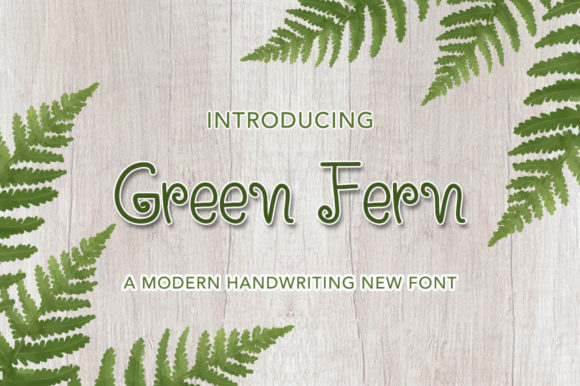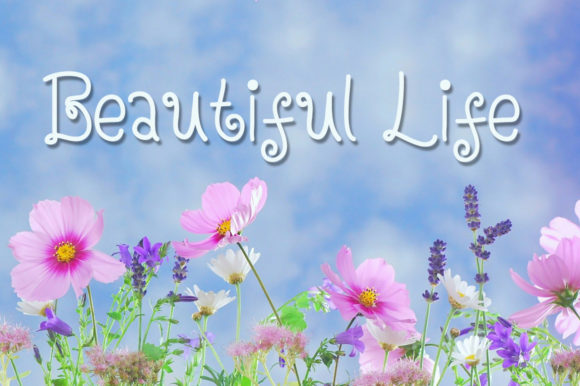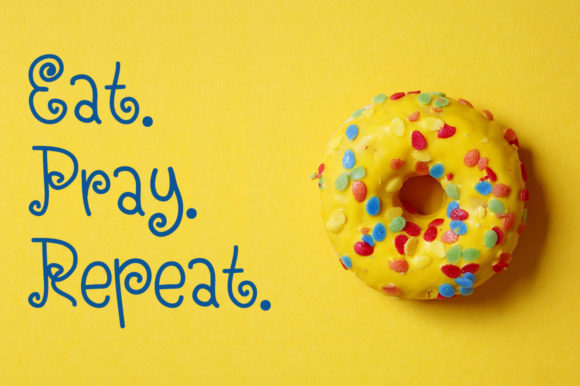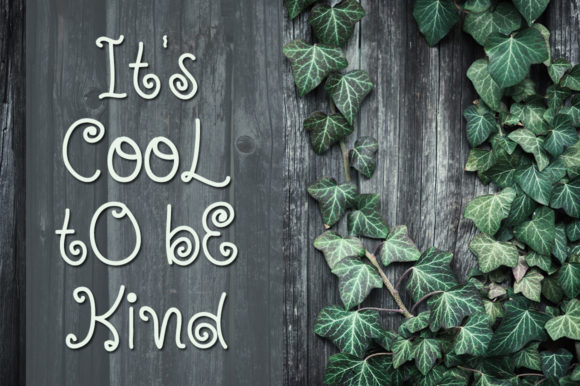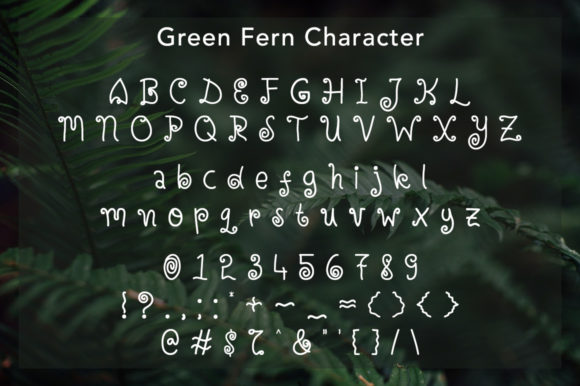
Green Fern Font
About Green Fern Font
Green Fern is a casual handwritten font. Its quirky and relaxed style makes it incredibly fit for a wide range of designs.
Use this gorgeous and unique font to bring any DIY project to life!